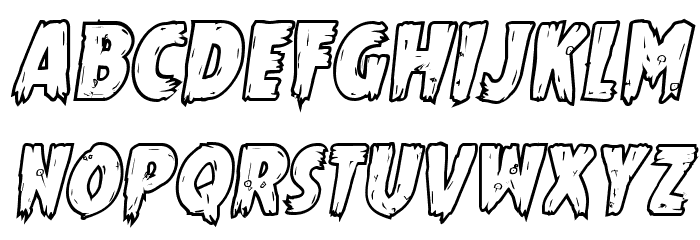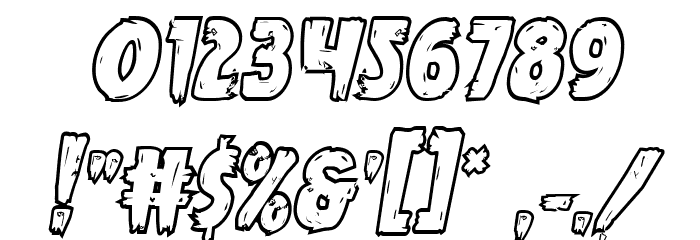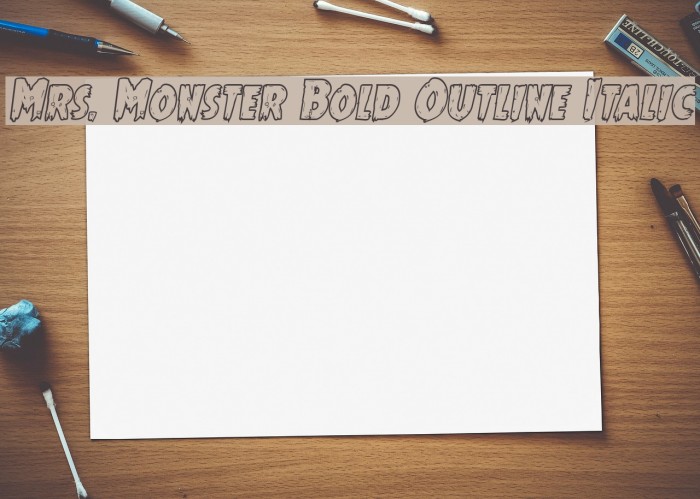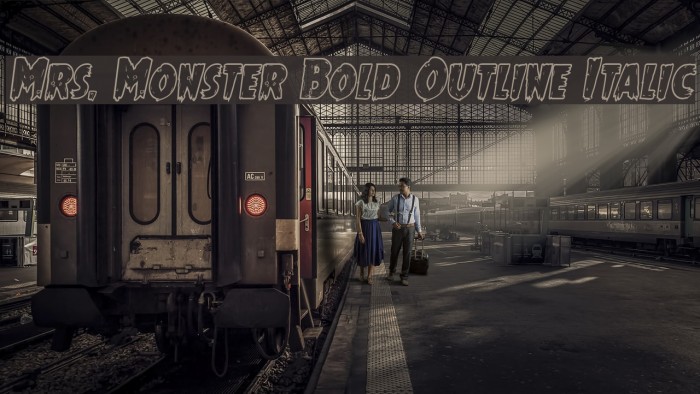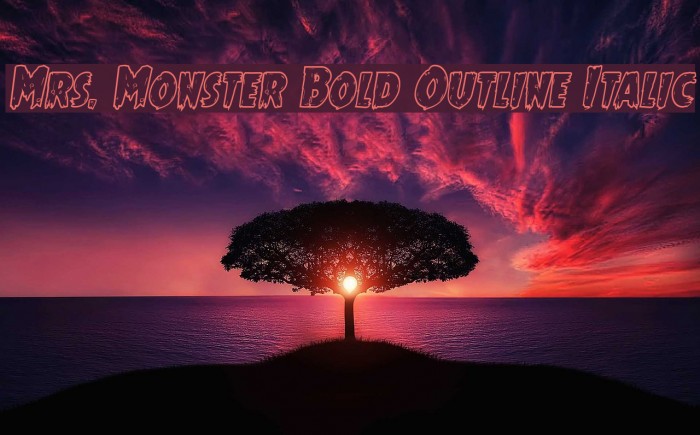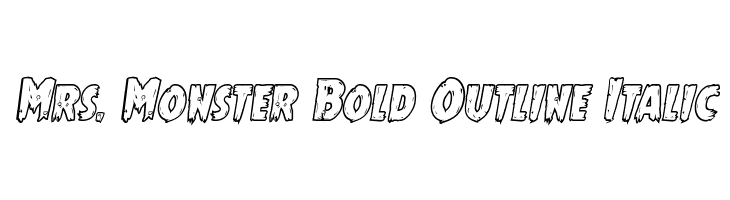
Mrs. Monster Bold Outline Italic Font
This font features a bold and playful design with an outline style that gives it a unique, eye-catching appearance. The letters have a jagged, irregular edge that adds a sense of movement and energy, reminiscent of a comic or cartoon style. The italic slant further enhances its dynamic look, making it suitable for creative and informal projects. The characters are well-spaced, ensuring readability while maintaining a fun and quirky aesthetic. This font is perfect for projects that require a bold statement, such as posters, headlines, or themed event invitations.
A bold, outlined, and italic font with a playful, comic-like style.
- Proposed Projects: Ideal for comic books, children's event posters, Halloween-themed designs, and playful branding.
- Use Case: Headlines, Posters, Themed Events